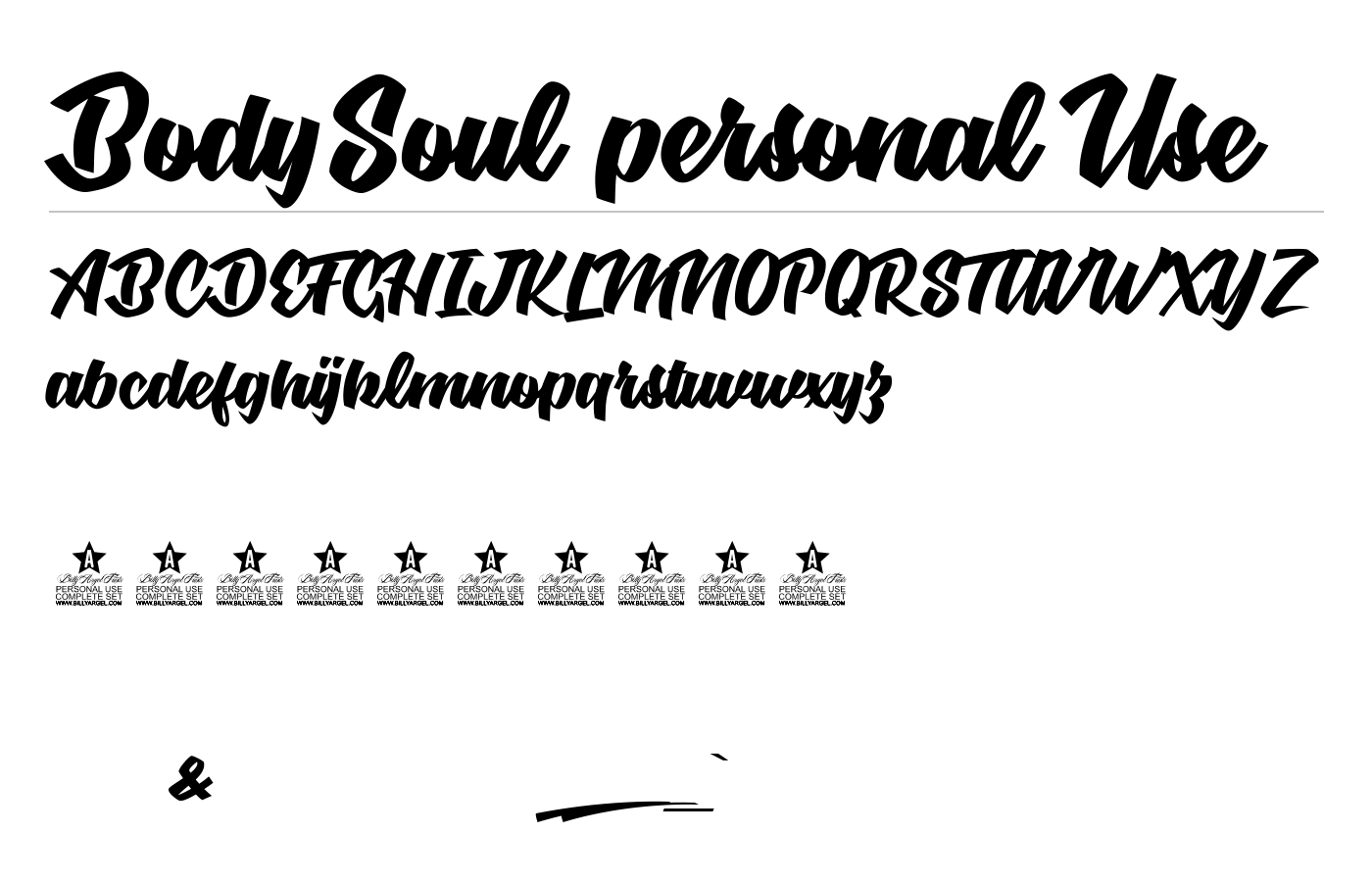
BodySoul Personal Use is a bold, brush script font that combines energetic, hand-drawn strokes with a smooth, casual flow. Its lively letterforms feature high contrast and slightly condensed shapes, making it perfect for adding a stylish, handcrafted vibe to logos, social media graphics, and packaging designs. This font works well when you want to convey creativity, warmth, and personality in a modern, approachable way.
BodySoul personal Use Font
About BodySoul personal Use Font